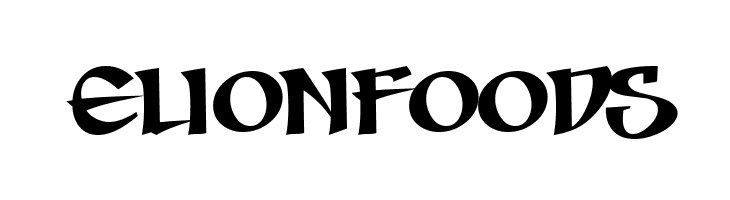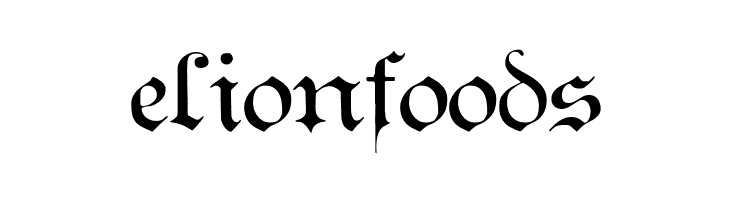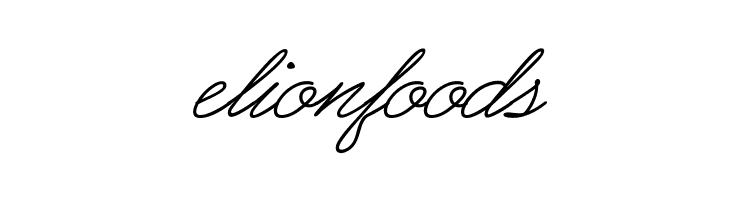
A bold, dynamic font with sharp, angular strokes and a dramatic flair.
( Fonts by Daniel Gauthier )
A fluid and elegant handwritten script font with a personal touch.
A bold, ornate blackletter font with dramatic flourishes and historical elegance.
A flowing, cursive script font with elegant, calligraphic strokes.
An elegant script font with flowing lines and classic appeal.
( Fonts by Bright Ideas )
A flowing, elegant script font with ornate swashes and flourishes.
( Fonts by Casady & Greene )
A flowing, cursive script font with elegant, connected strokes and an italic style.
( Font by kingthingsfonts.co.uk )
A sophisticated handwritten font with elegant, flowing strokes.
( Fonts by Steve Deffeyes - www.deffeyes.com )
An elegant serif font with swash elements and flowing curves.
( Fonts by Mickey Rossi - www.subflux.com )
A bold, flowing script font with connected letterforms and elegant curves.